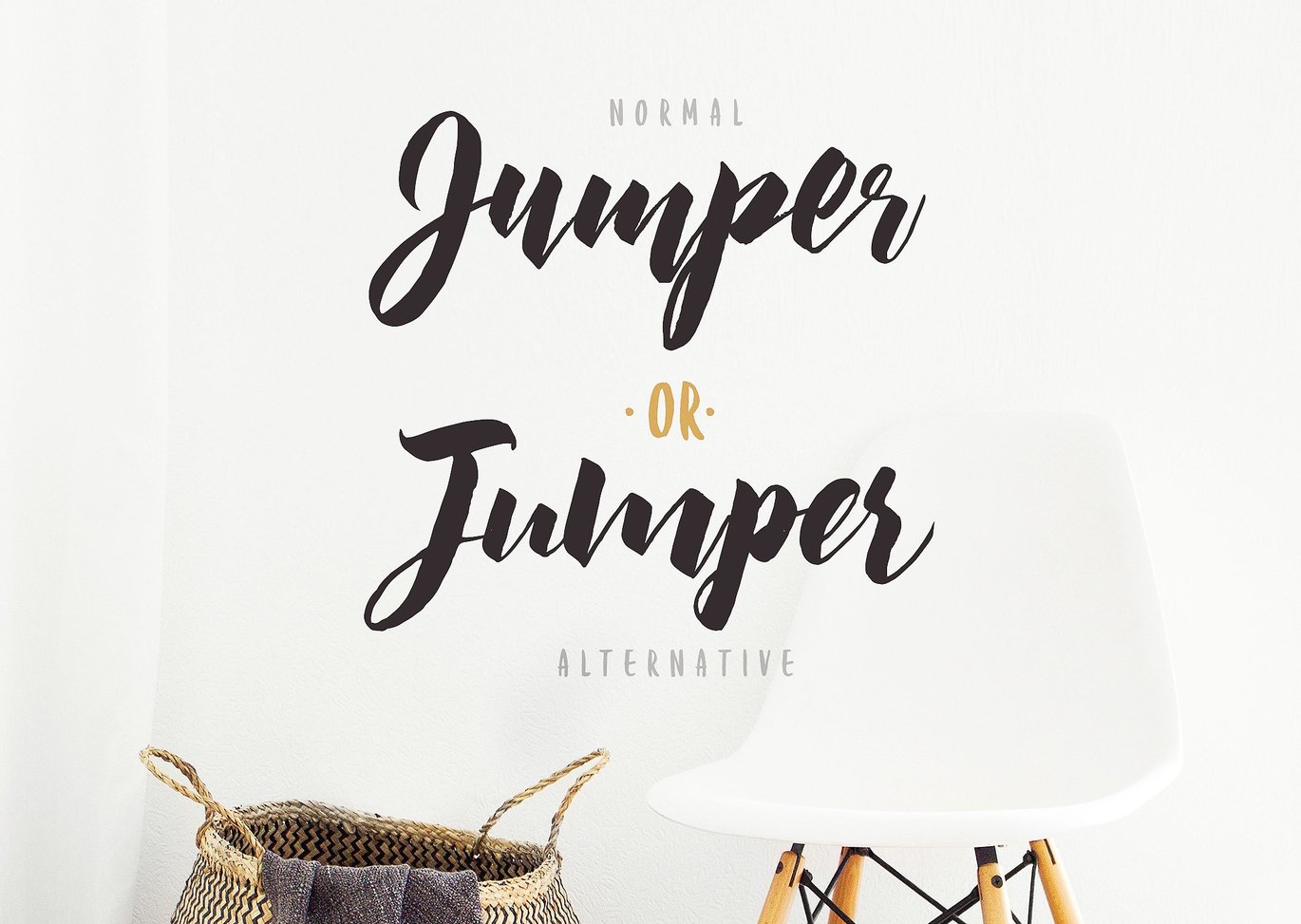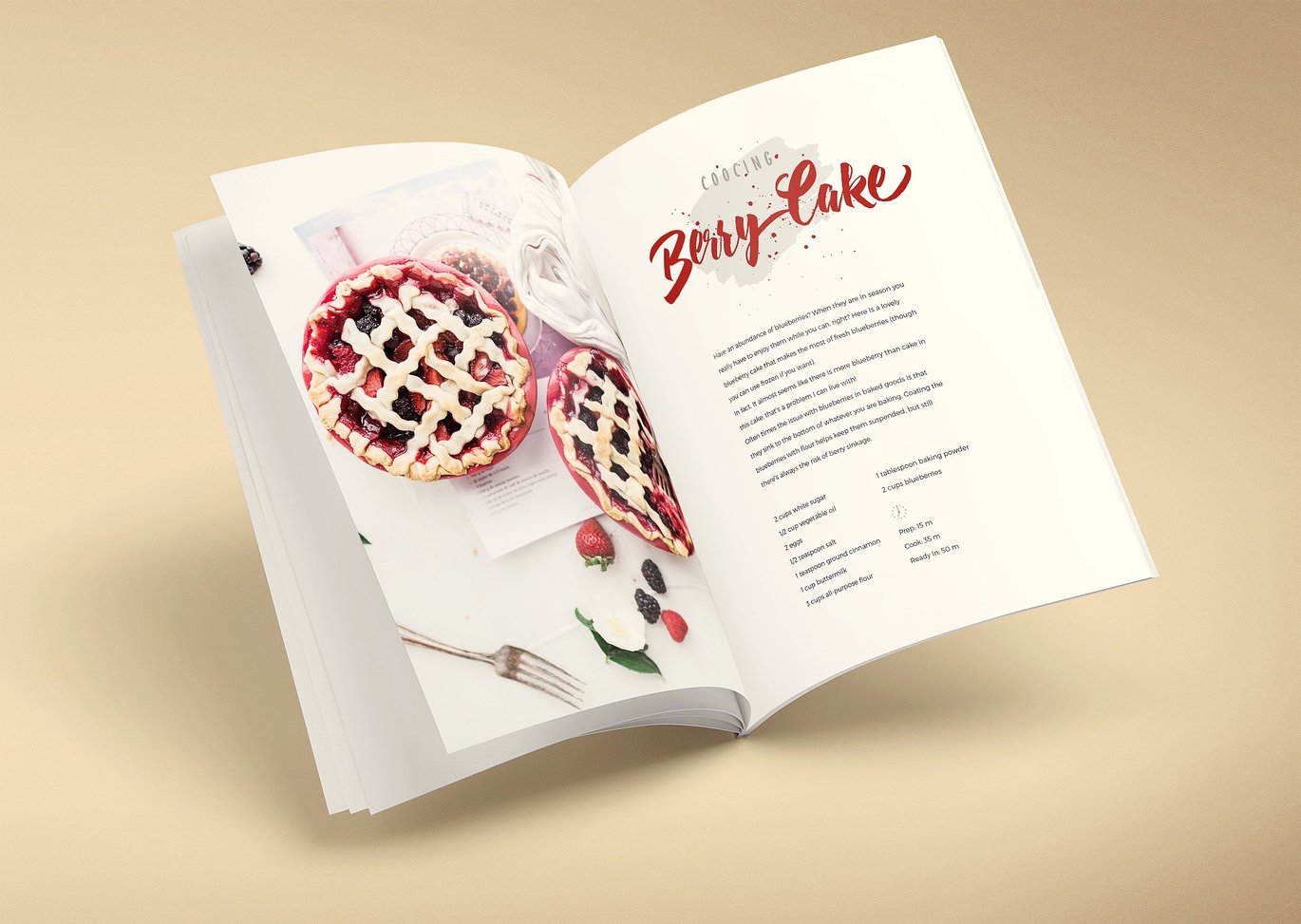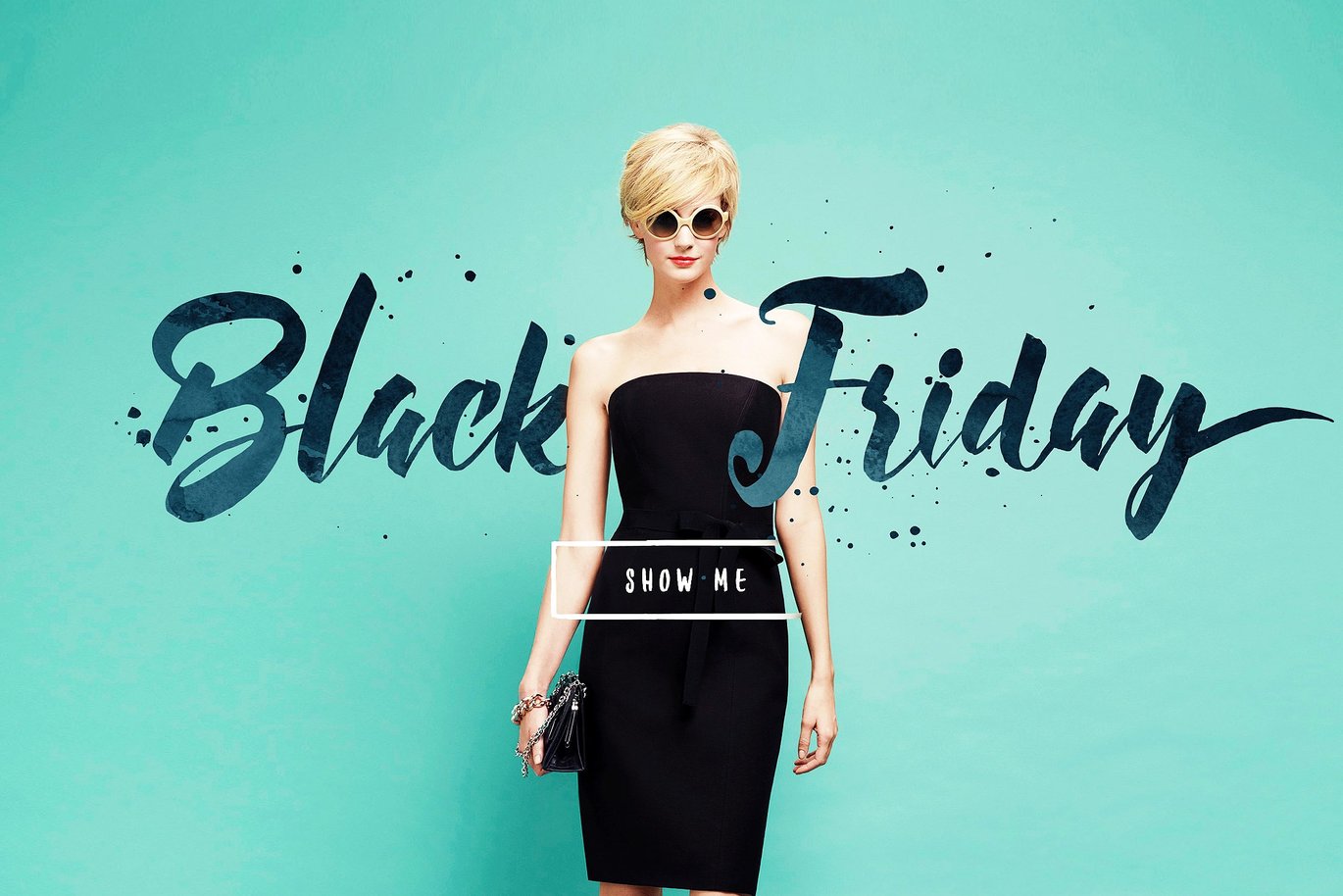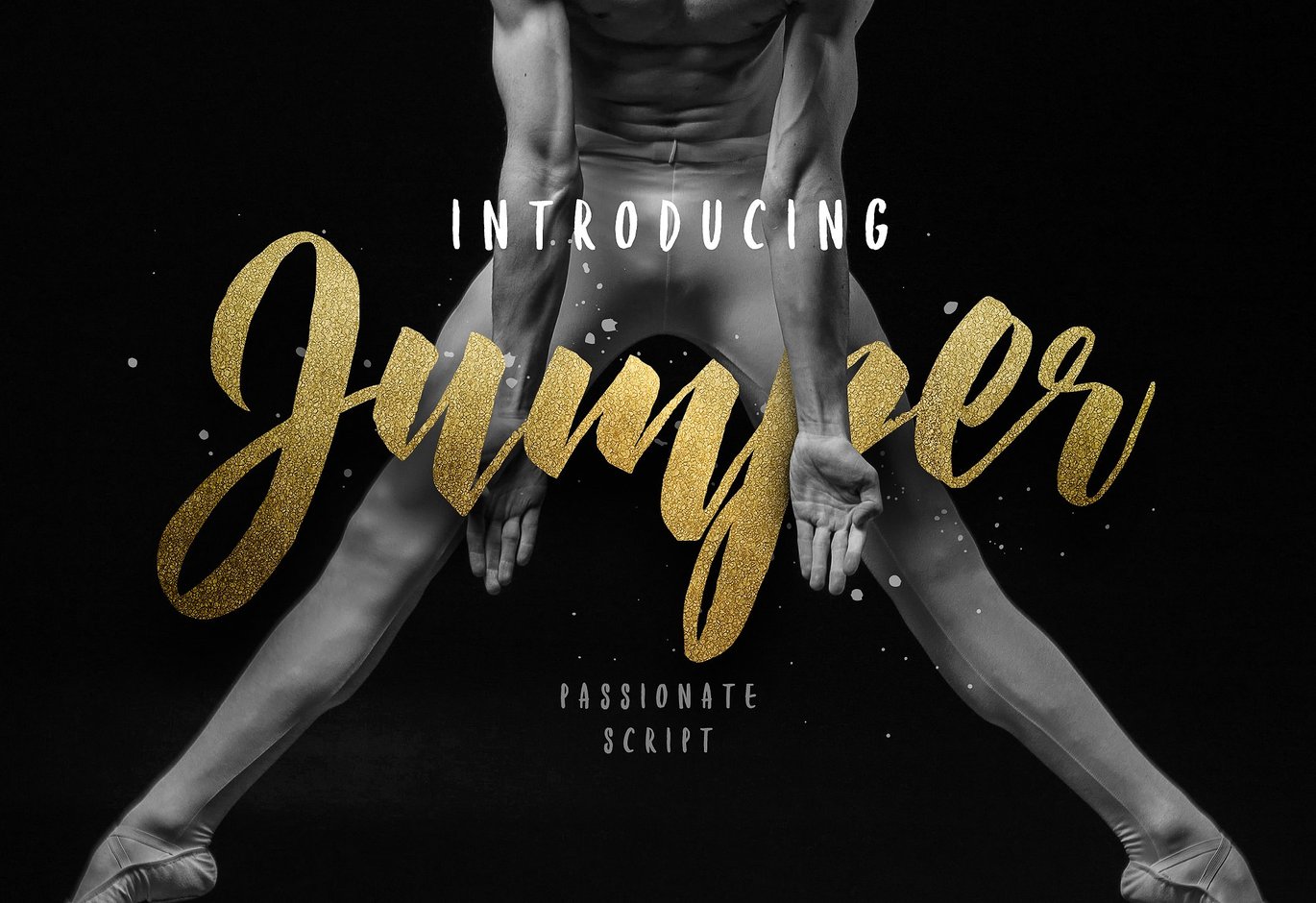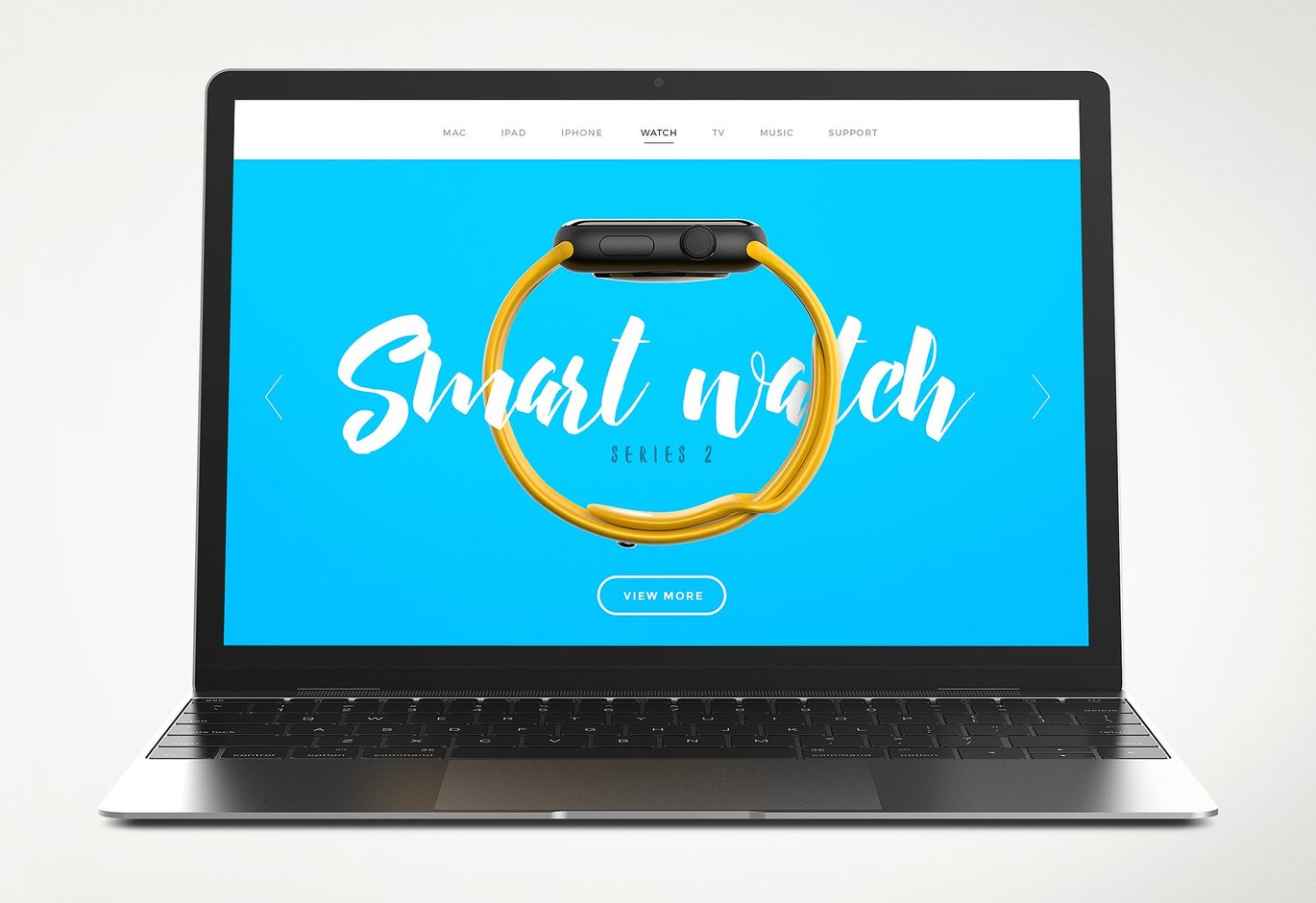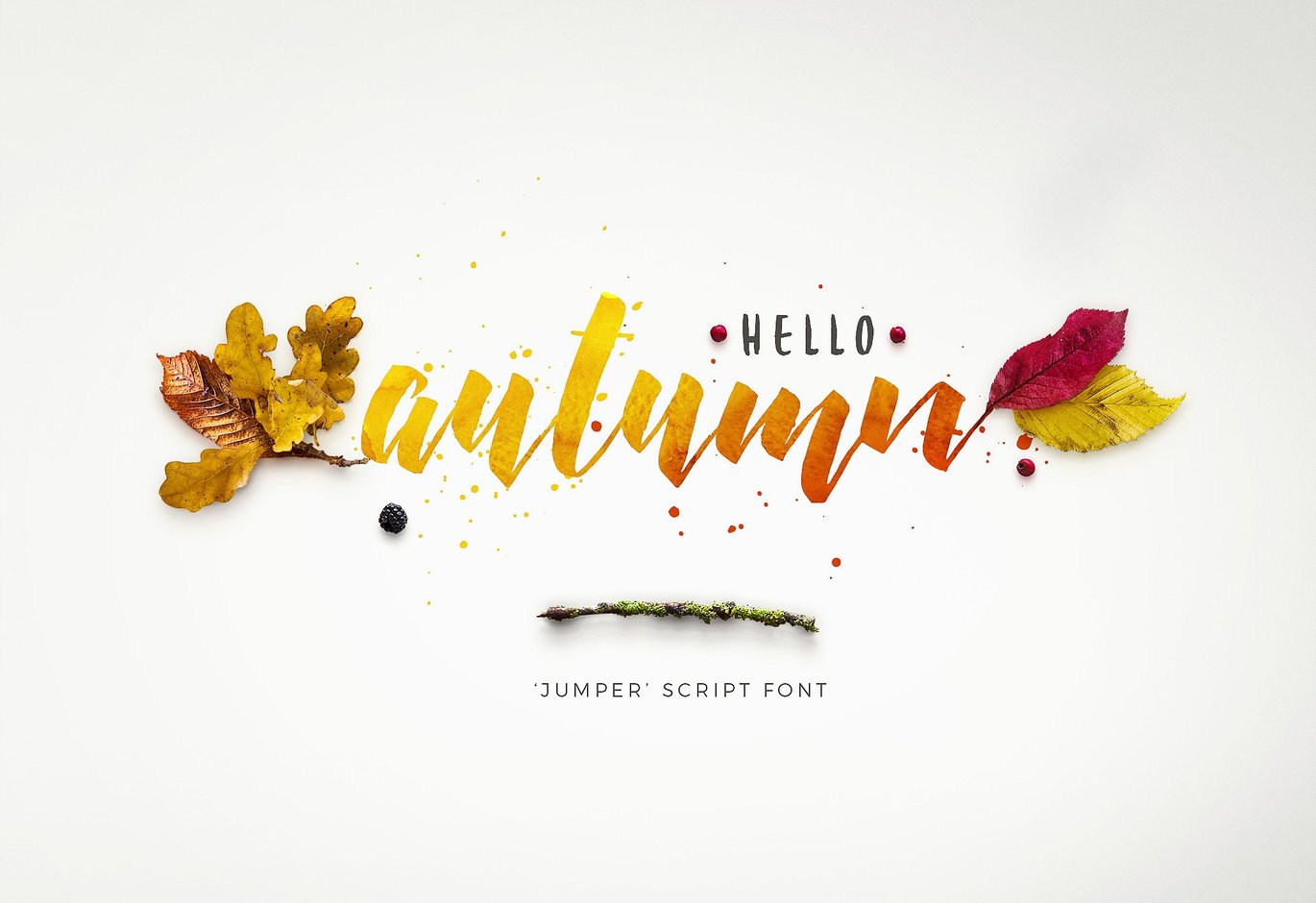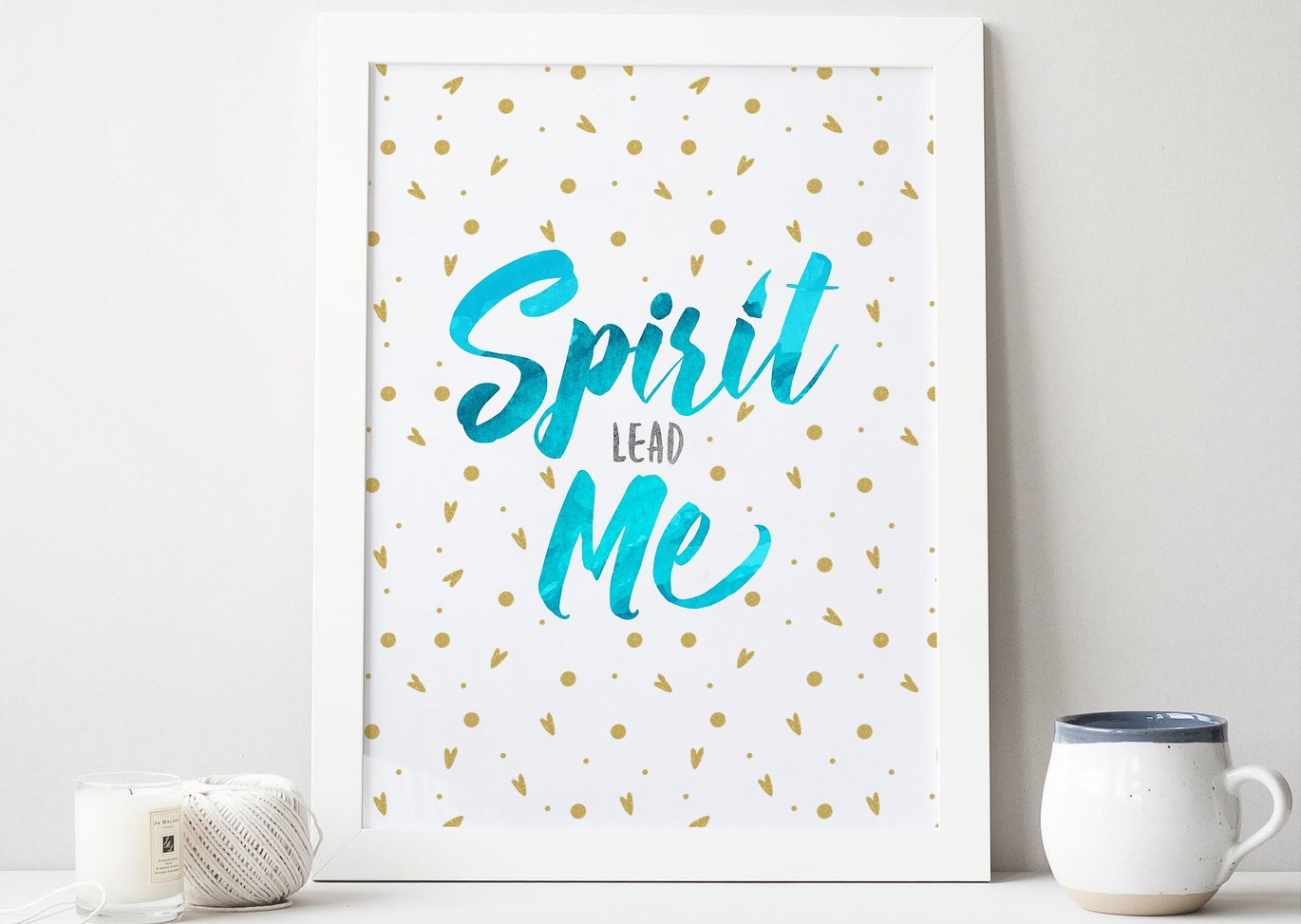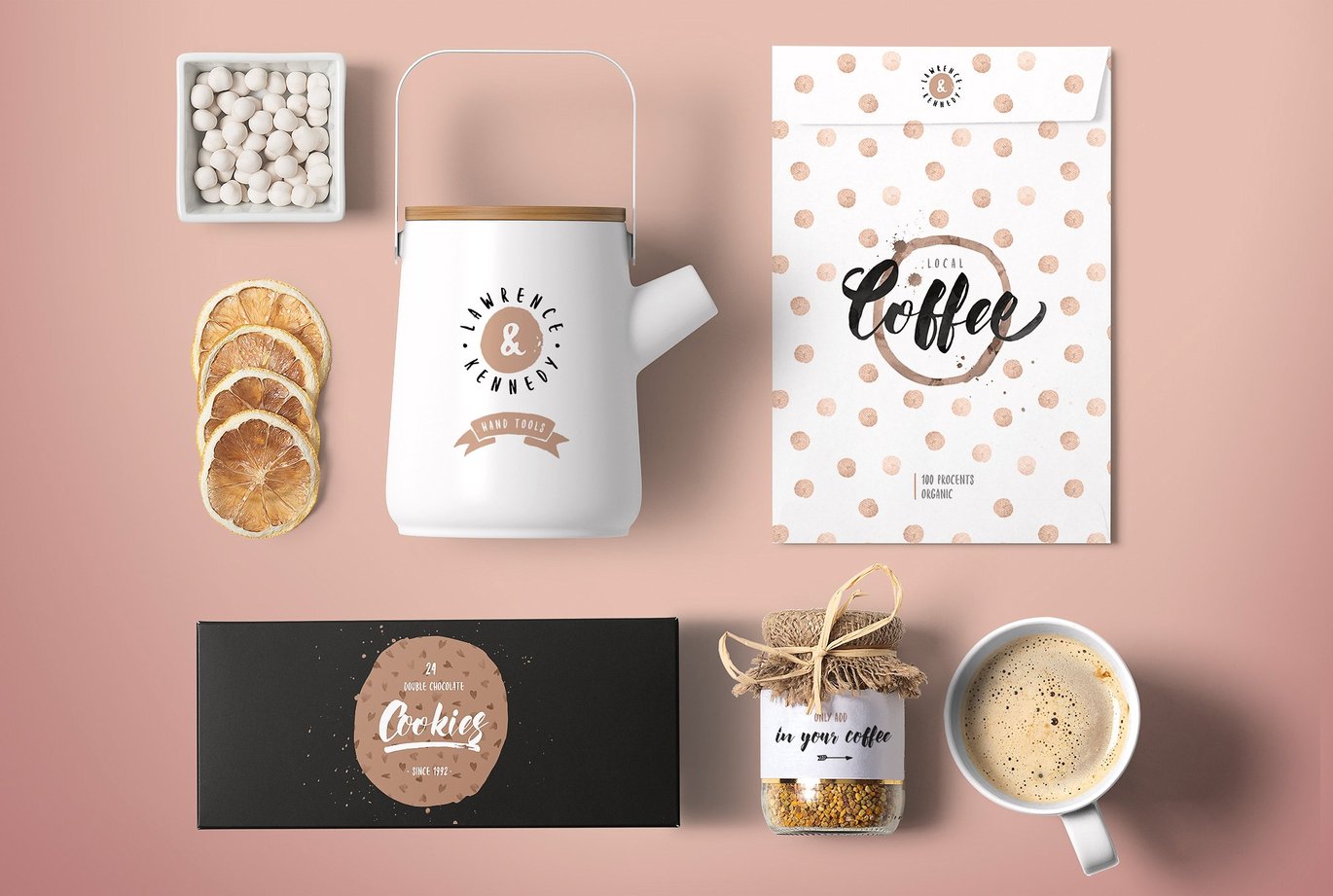
Jumper Script Fonts
Jumper is a handlettering typeface with a brush style, it’s perfect for latterhead, apparel design, headline, logotype, poster, card, and etc. For folks who have opentype capable software : The alternates are accessible by turning on ‘Stylistic Alternates’ and ‘Ligatures’ buttons on in Photoshop’s Character panel, or via any software with a glyphs panel, e.g. Adobe Illustrator, Photoshop, Inkscape.
Uppercase and lowercase letters
Numbers
Punctuation
Ligatures
Alternate letters
Splashes
Splatters
Symbols